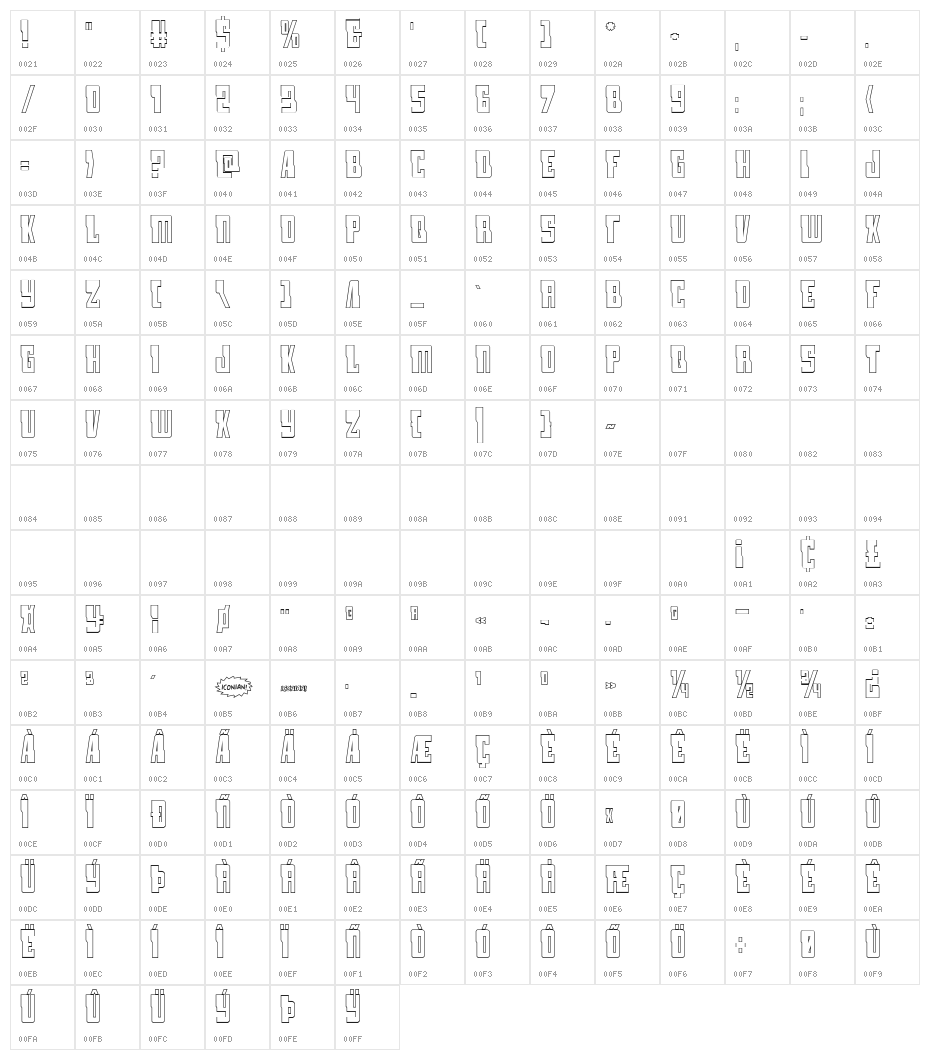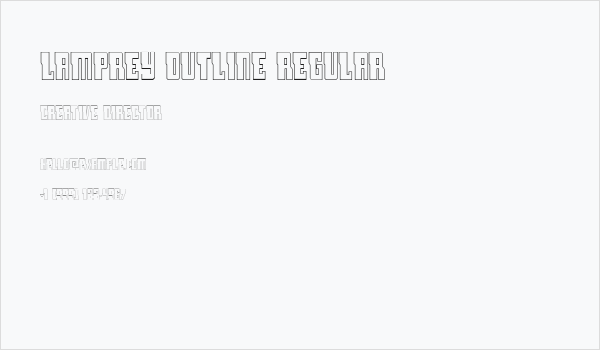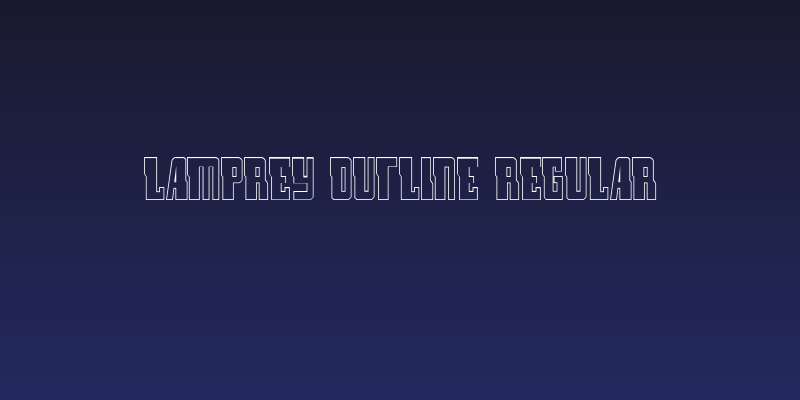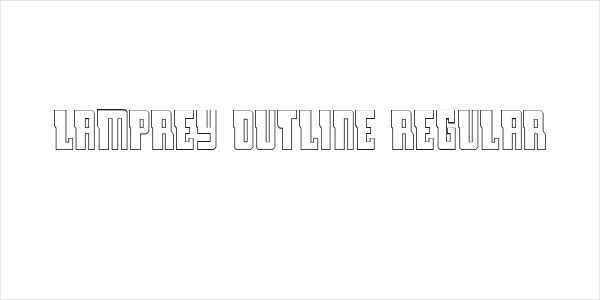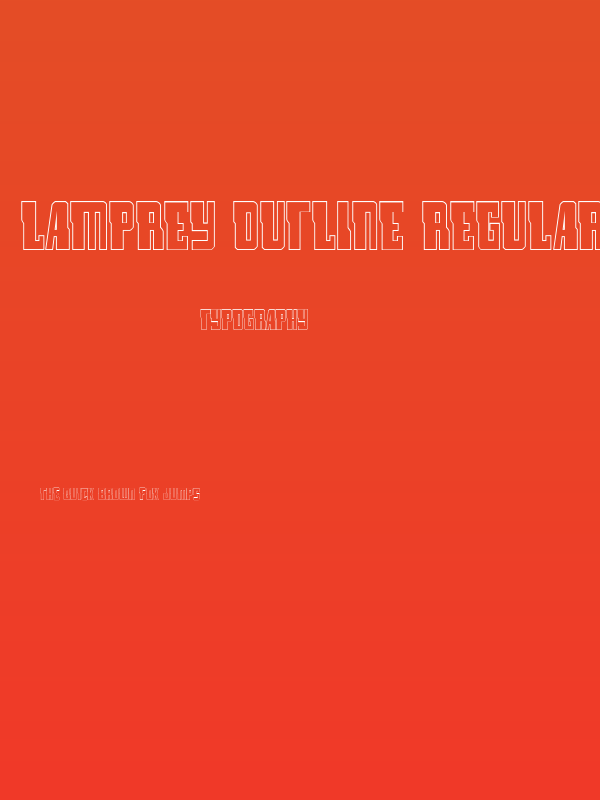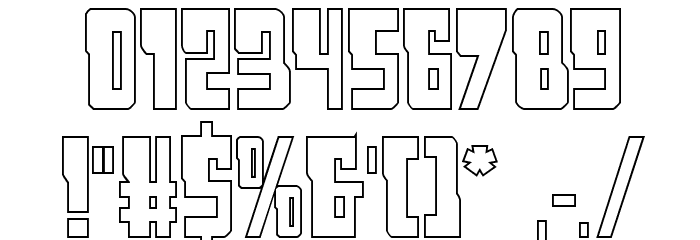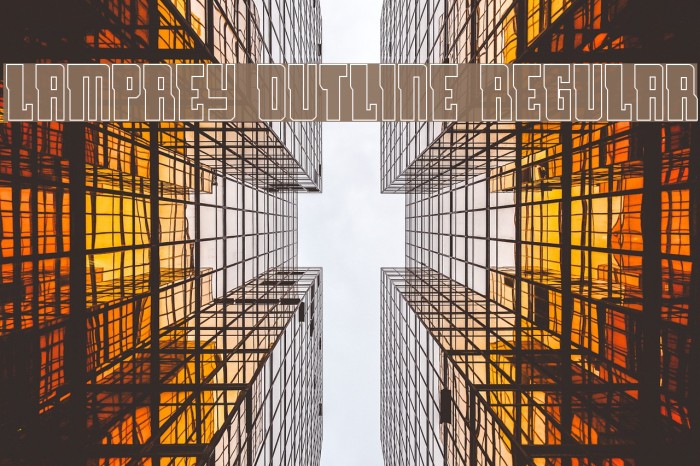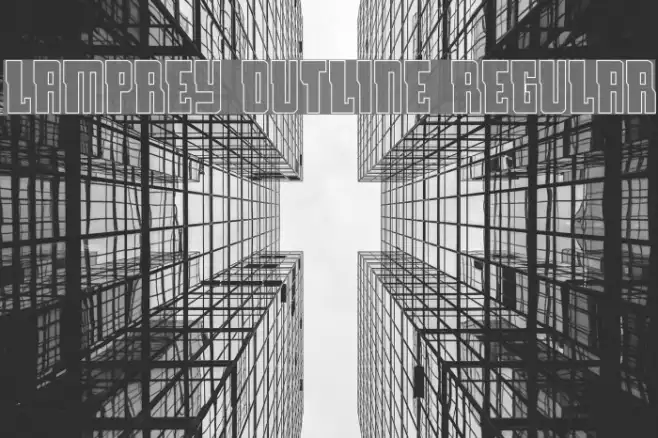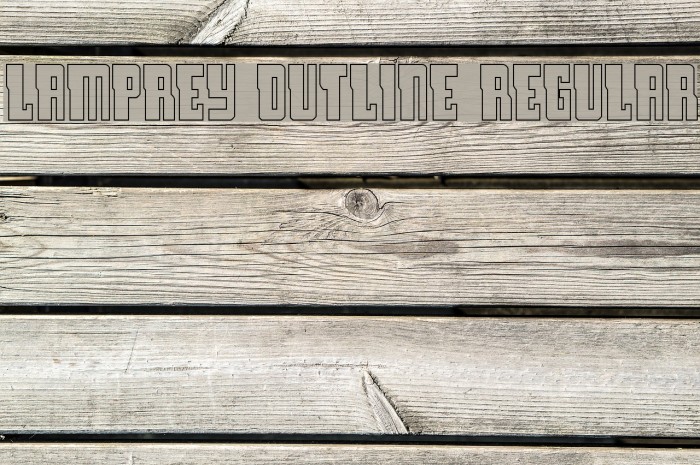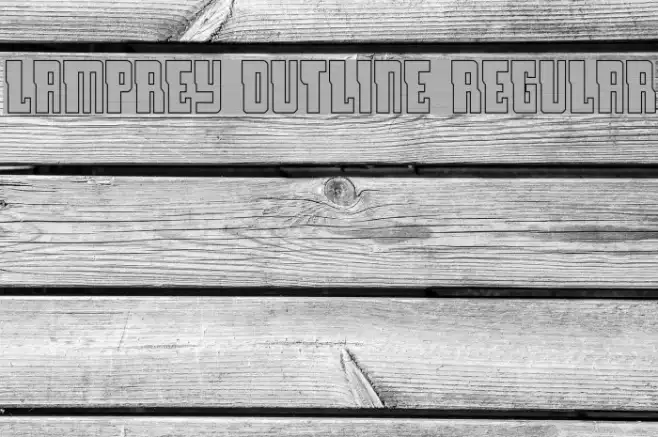
Lamprey Outline Regular Font
Lamprey Outline Regular Description
This font features a bold, geometric outline style that emphasizes a modern and futuristic aesthetic. The characters are constructed with sharp angles and straight lines, creating a sense of precision and clarity. Each letter and number is outlined, giving it a three-dimensional appearance that stands out against any background. The uniformity in height and width across characters ensures a cohesive look, while the distinct outline adds a layer of depth and interest. This design is particularly effective for creating eye-catching headlines or titles where a strong visual impact is desired.
| Proposed Projects | Ideal for branding, posters, video game graphics, and any project requiring a strong visual impact. |